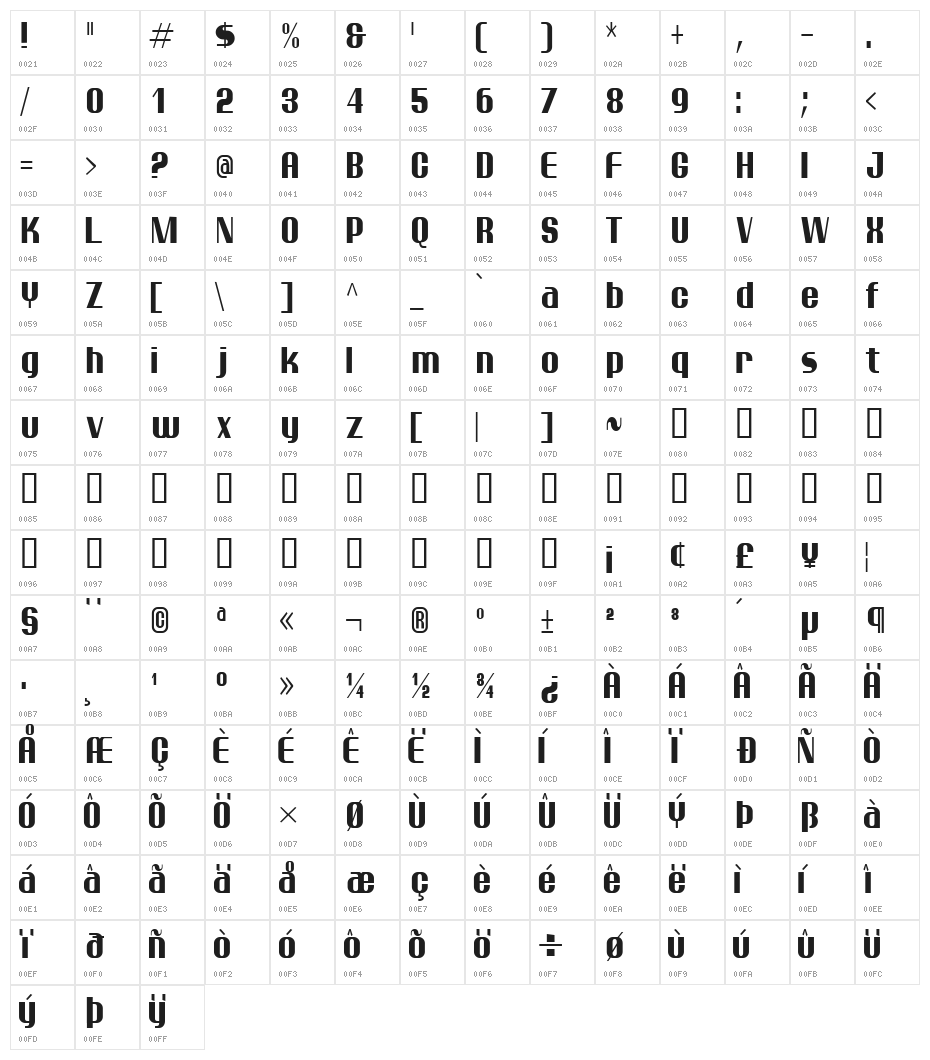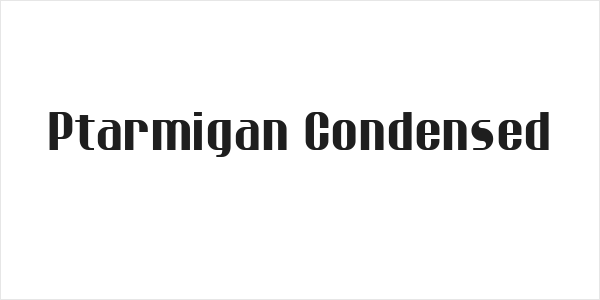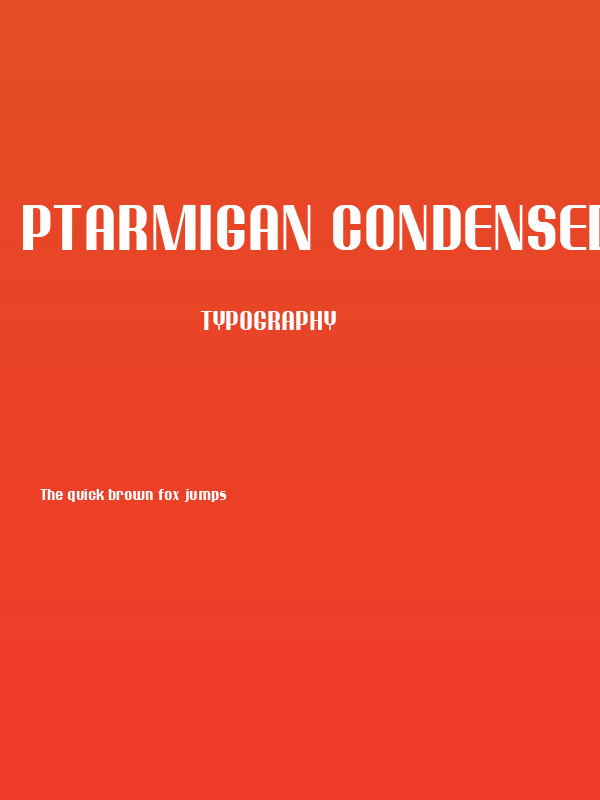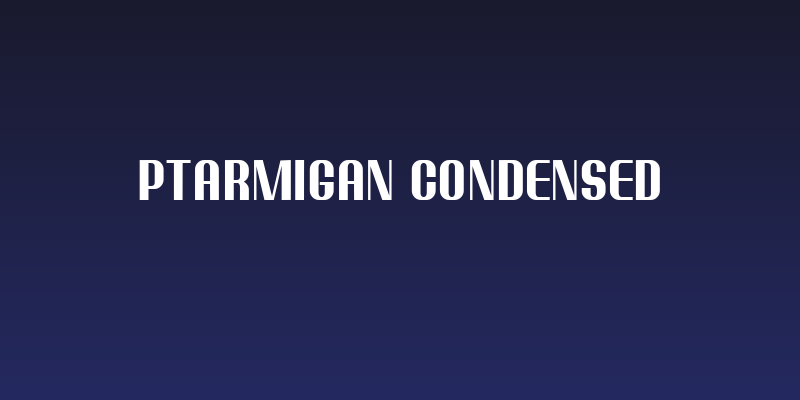
Ptarmigan Condensed Font
Ptarmigan Condensed Description
This font features a bold and condensed style with a strong presence. The uppercase letters are tall and narrow, giving a modern and impactful look. The lowercase letters maintain the condensed style, ensuring consistency across the typeface. Numbers are equally bold, with a geometric influence that enhances readability. Special characters are designed to match the overall aesthetic, providing a cohesive appearance. The font's condensed nature makes it ideal for space-saving designs while maintaining legibility.
| Proposed Projects | Ideal for headlines, posters, branding, and any design requiring a strong visual impact. |